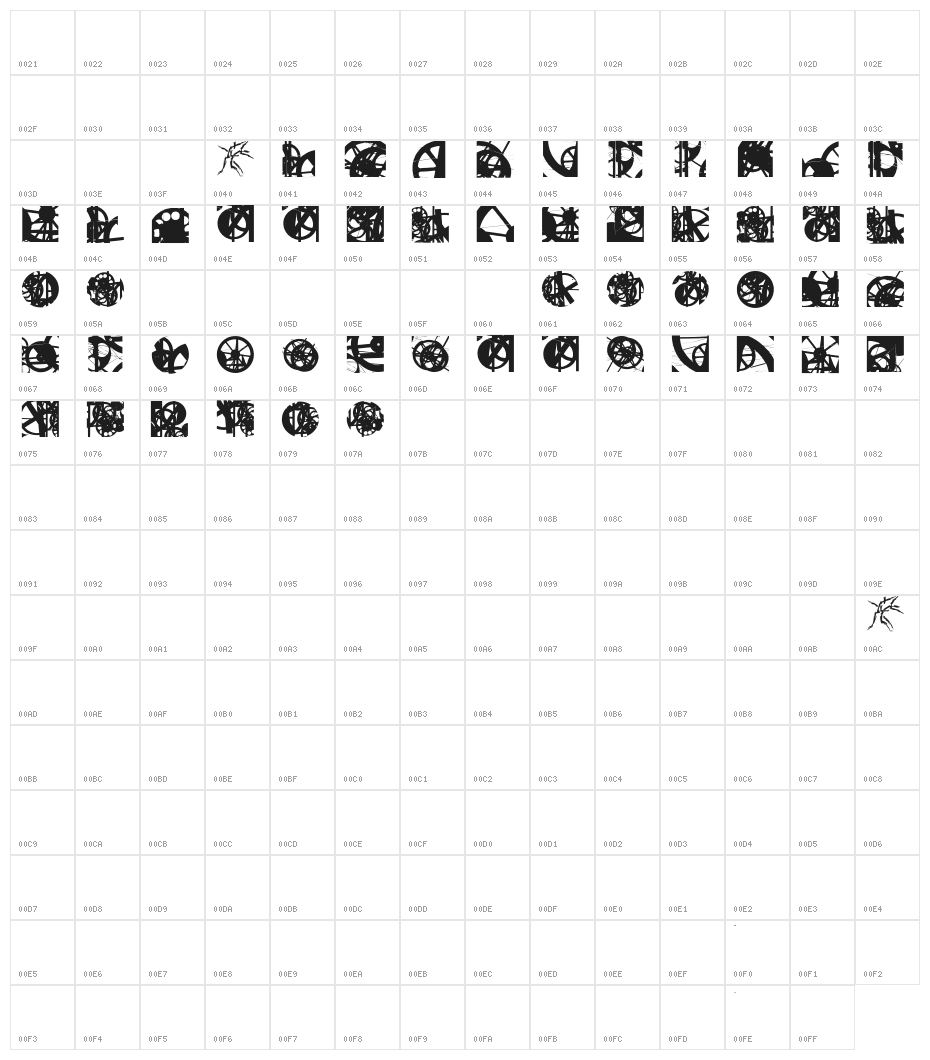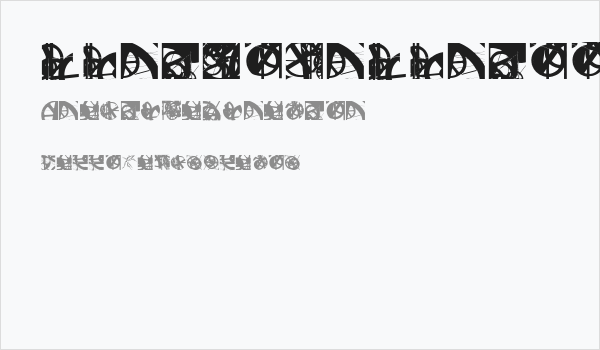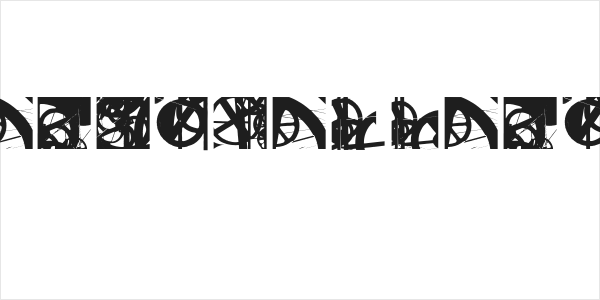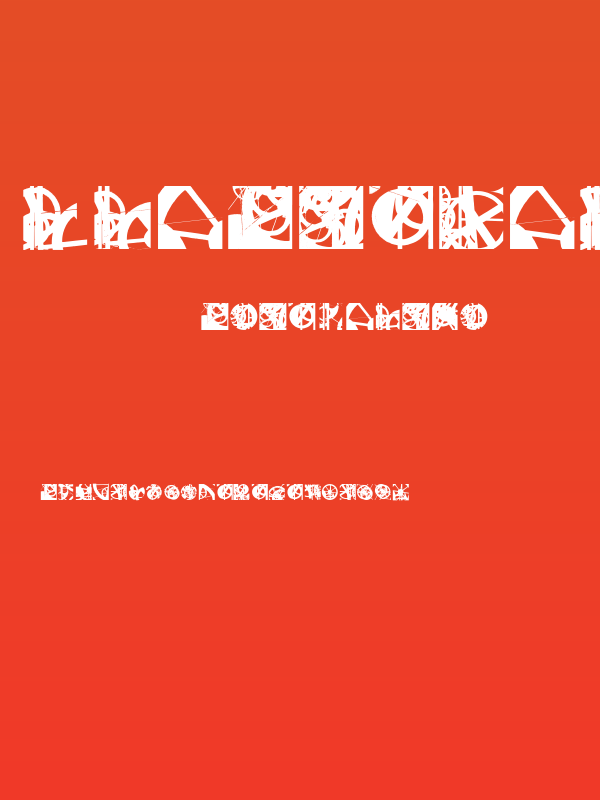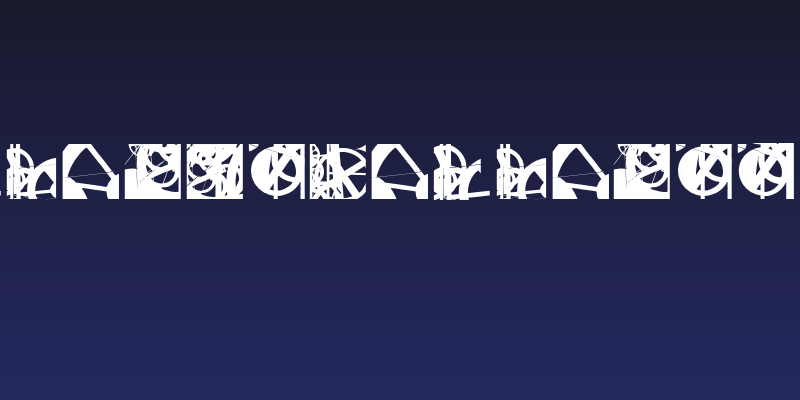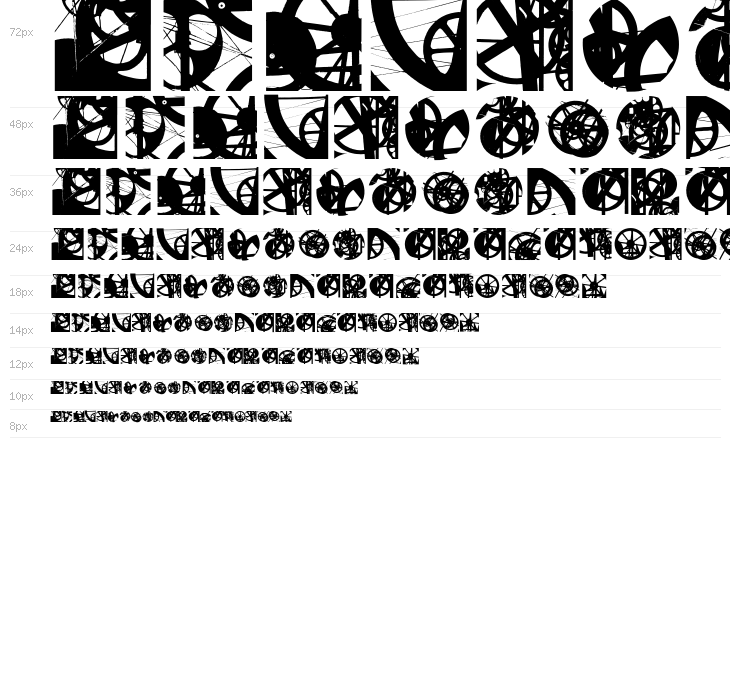
LArtPourLArtOne Font
LArtPourLArtOne Description
This font is a highly decorative and abstract style, characterized by intricate patterns and overlapping geometric shapes within each character. The design is bold and visually striking, with a complex interplay of lines and curves that create a sense of movement and depth. Each letter is uniquely crafted, making it difficult to distinguish individual characters at first glance. The font's artistic nature makes it more suitable for creative and artistic projects rather than practical text applications.
| Use Case | Logos, Posters, Artistic projects |
| Proposed Projects | Ideal for artistic projects, album covers, posters, and creative branding that require a unique and eye-catching typeface. |